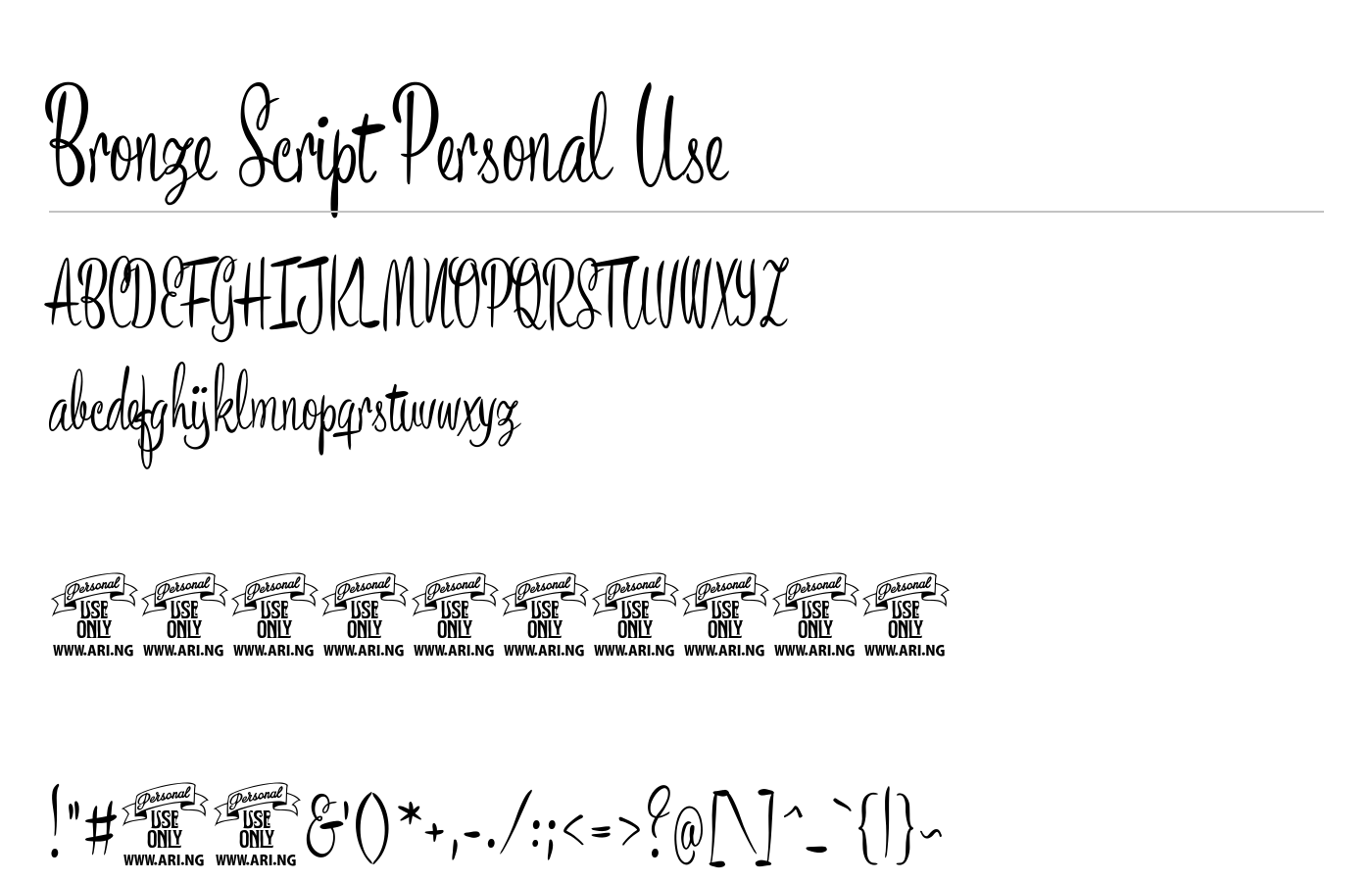
Bronze Script Personal Use is a playful and elegant script font with tall, narrow letterforms that mimic casual, handwritten calligraphy. It has a light, airy feel with soft curves and looping strokes, making it ideal for creative and personal design projects such as invitations, logos, and social media graphics. This font adds a friendly, stylish touch while maintaining readability in both uppercase and lowercase.
Bronze Script Personal Use Font
About Bronze Script Personal Use Font